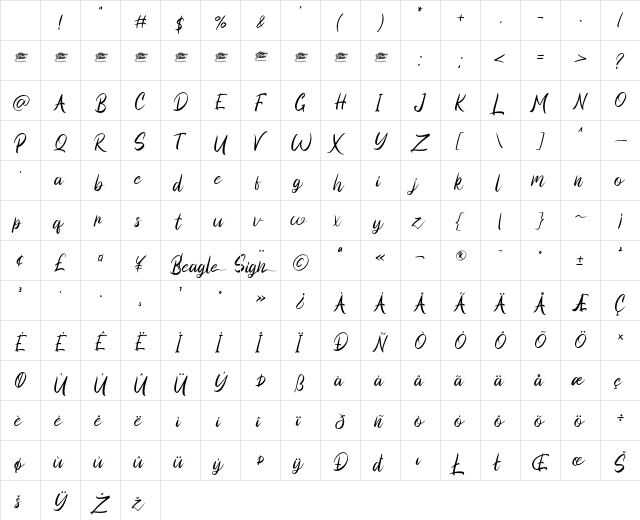
Complete Beagle Sign - Personal Use Regular glyph index. Displaying only characters natively supported by Beagle Sign - Personal Use Regular font.
Beagle Sign - Personal Use is a composed and adaptable typeface that performs quietly and consistently across a wide range of design contexts.